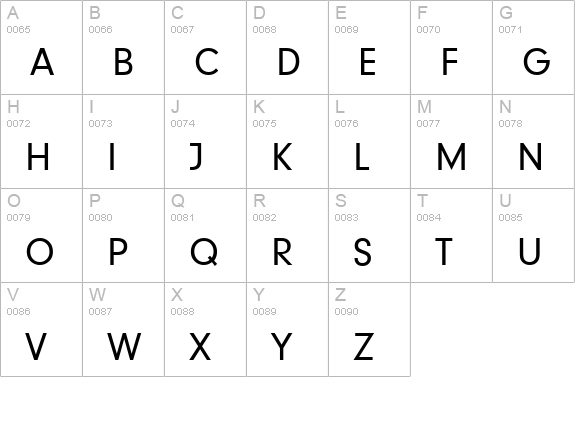
NeutralGrotesk-Regular Font Details
NeutralGrotesk-Regular is the standard, neutral variant in the NeutralGrotesk typeface family \xE2\x80\x94 well suited to general body text, paragraphs, and standard typographic work.
NeutralGrotesk-Regular is a versatile and modern typeface that strikes the perfect balance between neutrality and expressiveness. With its clean lines and geometric shapes, this font is ideal for a wide range of design projects, from minimalist branding to editorial layouts. Its readability and simplicity make it a go-to choice for designers looking for a versatile sans-serif option. What makes NeutralGrotesk-Regular even more appealing is that it is available for free download at FontsMarket.com. This means that you can easily access this high-quality font without any cost, making it a valuable addition to your font library. Whether you are working on a personal project or a professional design, NeutralGrotesk-Regular offers a reliable and stylish option that is sure to elevate your work.